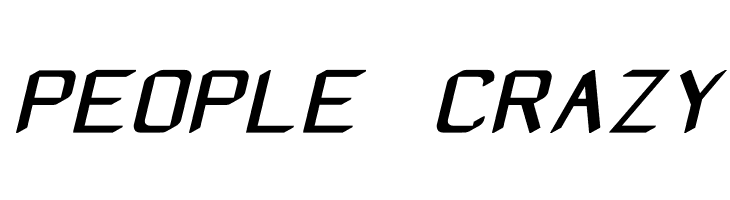
Echo Station Expanded Italic Font
- Font: Echo Station Expanded Italic
- Weight: Expanded Italic
A modern, geometric font with sharp angles and a sleek, futuristic style.